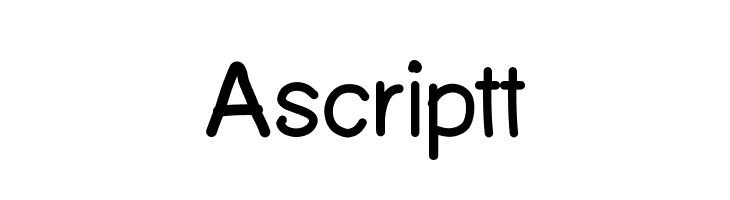
A playful, handwritten font with rounded, bold characters and a casual style.
A bold, rounded, and playful font with a cartoonish style.
A bold, rounded font with a playful and friendly style.
A bold, 3D italic font with a playful and dynamic style.
A bold, playful font with rounded edges and a retro vibe.
A geometric, modern typeface with clean lines and uniform stroke width.
A bold, condensed, and italicized font with a dynamic and modern style.
A bold, futuristic font with geometric, block-like characters.
设计师偏爱 Consolidated, Ascriptt, Dragon Ball, Persona Aura and Dread Ringer 3D Italic,因为其造型干净、适用范围广—— 从品牌识别到落地页、海报都能胜任。